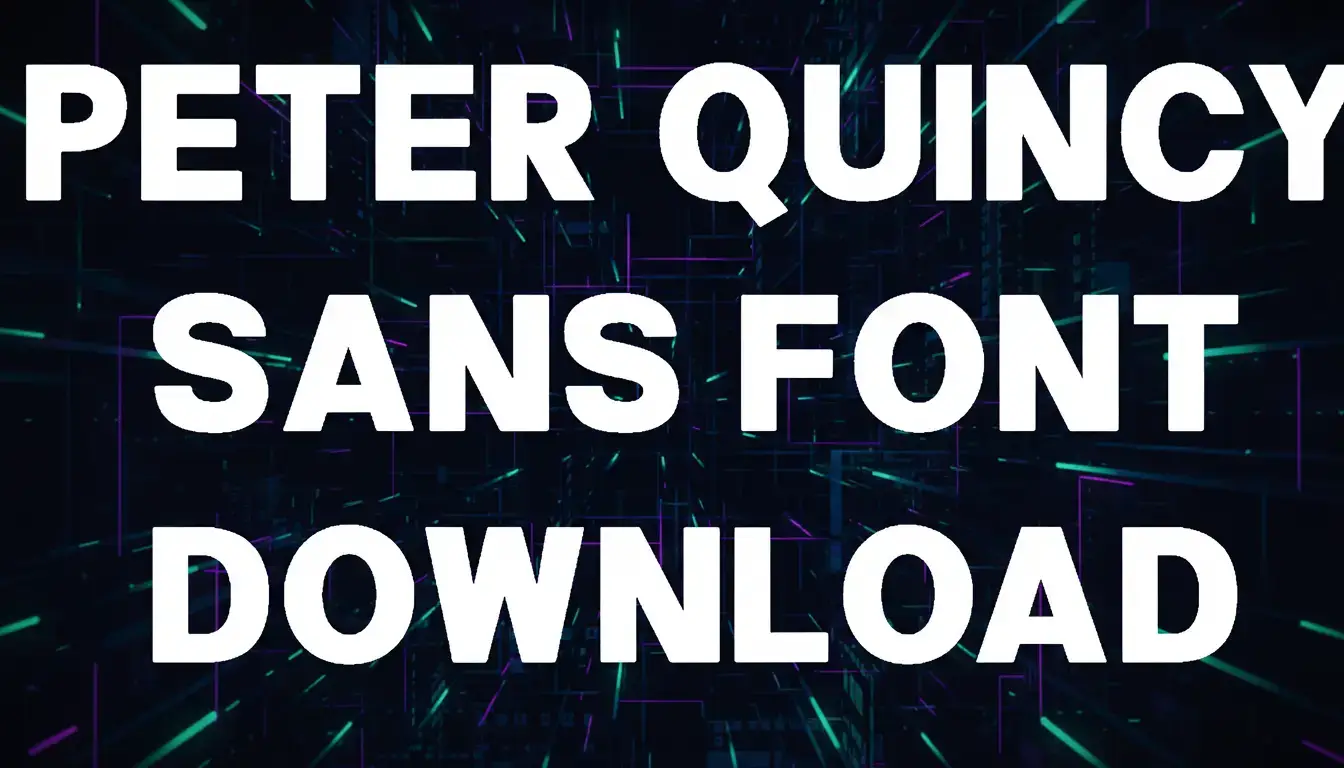
Peter Quincy Sans Font
Peter Quincy Sans
Peter Quincy Sans is a sans serif font designed by Akhmad Reza Fauzi and published by Grezline Studio. Simple, open letter shapes keep it easy to read at almost any size, from app buttons to big headlines. You get two styles in one free ZIP, and the preview above lets you test each one before you download.
- Designer: Akhmad Reza Fauzi
- Publisher: Grezline Studio
- Font styles: 2 (Regular and Sans)
- Glyphs: 224 in the Regular style
What You Can Type With Peter Quincy Sans
Peter Quincy Sans covers the full alphabet in upper and lowercase, plus all ten numbers, so you can set names, dates and prices without switching fonts. Everyday marks like &, !, ? and @ are there too. Thanks to its accented letters, it also works for Spanish, French, German, Portuguese and Italian, not just English.
Where Peter Quincy Sans Works Best
Think of Peter Quincy Sans for websites, app screens and clean logos. It works for headings and body text alike. If the download has several weights, use a heavier one for titles and a lighter one for paragraphs. Because the family has more than one style, you can mix them in a single design for headings, subheadings and highlights.
Does Peter Quincy Sans support accented letters?
Yes. Peter Quincy Sans includes the accented letters needed for Spanish, French, German, Portuguese and Italian, so it works for more than just English.